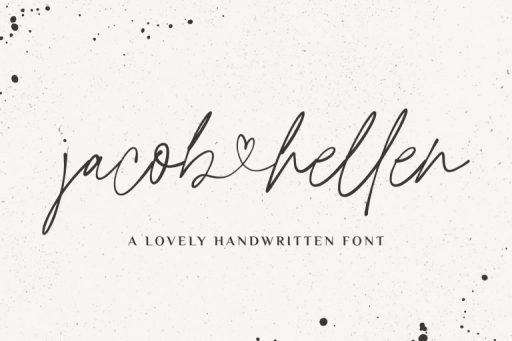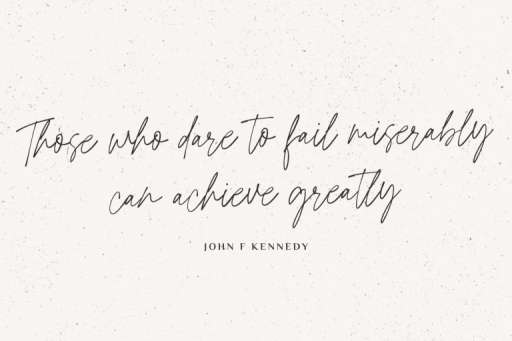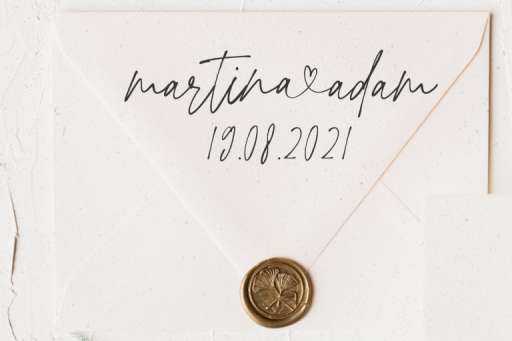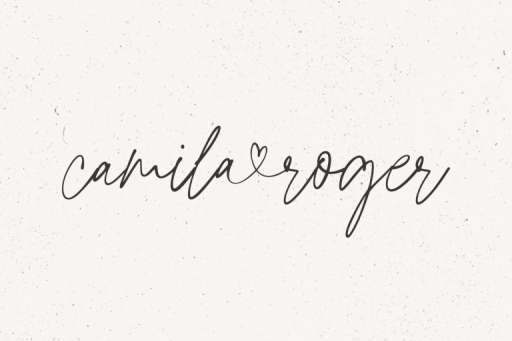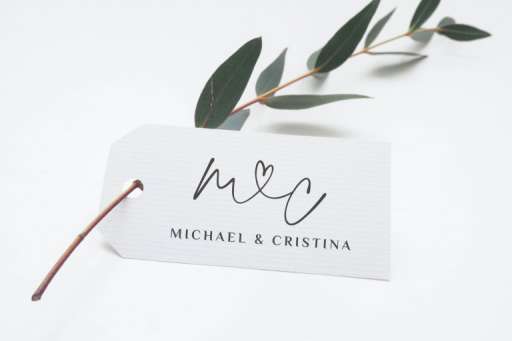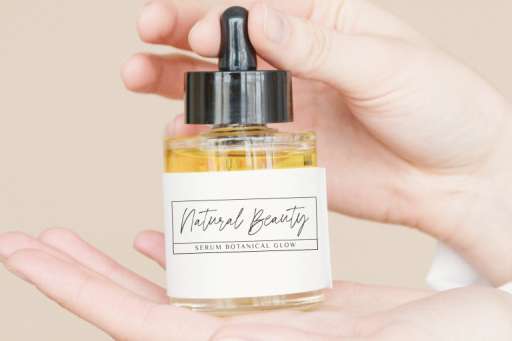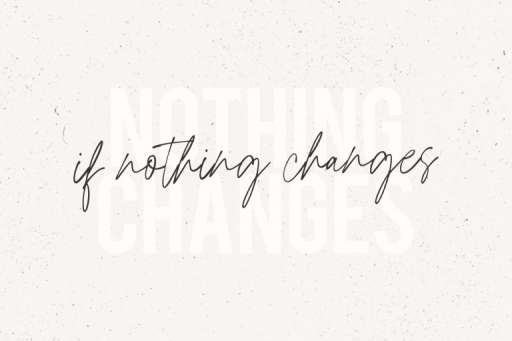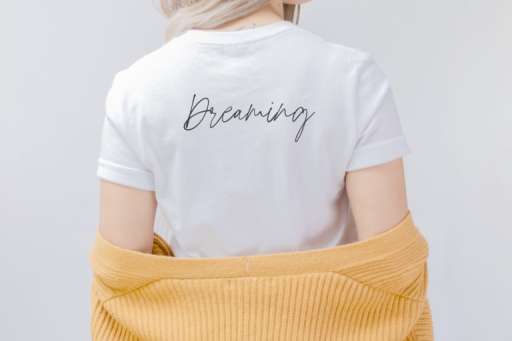
Jacob & Hellen Swash Heart
Jacob & Hellen Font
Jacob and Hellen – Branding Wedding Font
Jacob and Hellen is a modern calligraphy font with handwritten. It is perfect for branding, wedding, stationery projects, books, cards, logos, t-shirt, and much more.
Jacob and Hellen includes lowercase and uppercase, number, punctuation, ligatures, and multilingual support. Also includes lowercase connecting heart swashes.
Use the following combos:
Letter with connecting heart
• type: a_a ( lowercase letter&lowercase letter/uppercase)
• For example: a_k m_s
Jacob & Hellen Features :
• Ligature
• Lowercase Swash Heart
• Multilingual